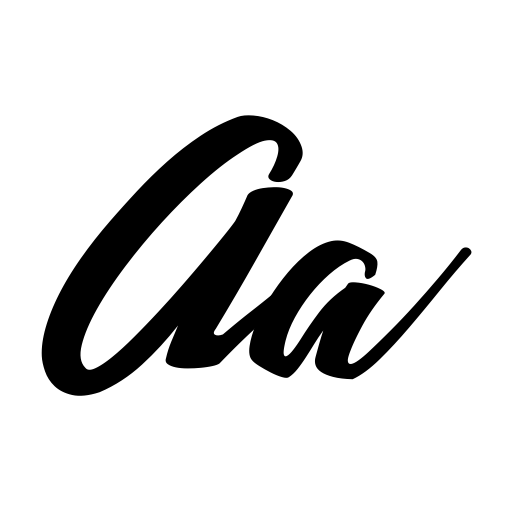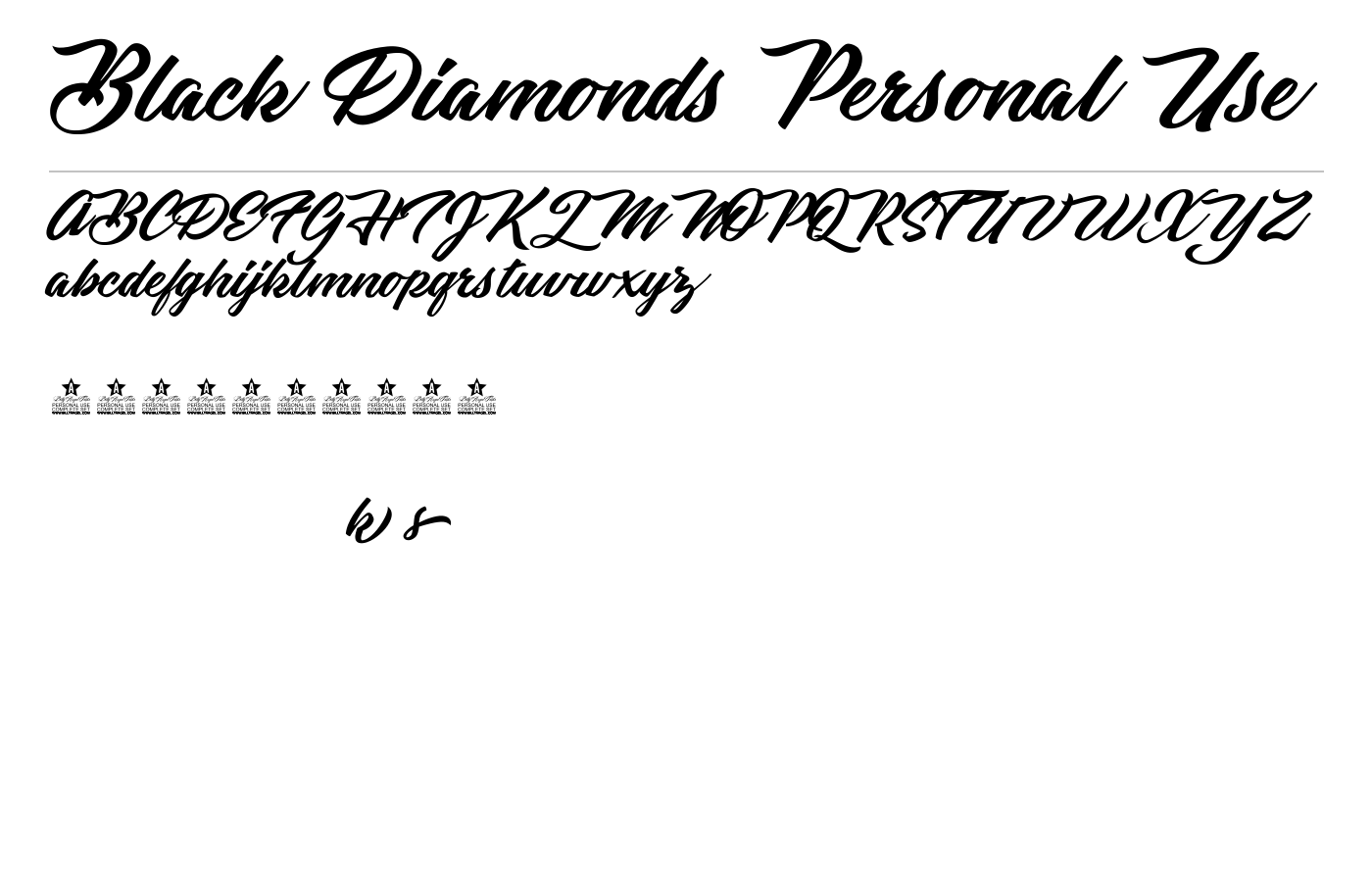
Black Diamonds Personal Use is an elegant script font with a smooth, flowing style that combines bold strokes and delicate curves, creating a stylish handwritten look. Its medium weight and moderately high contrast enhance readability while maintaining a sophisticated, vintage charm, making it perfect for branding, invitations, and editorial headlines. This font brings a graceful, classic personality that works well in luxury packaging, fashion logos, and creative projects seeking a warm, personal touch.
Black Diamonds Personal Use Font
About Black Diamonds Personal Use Font